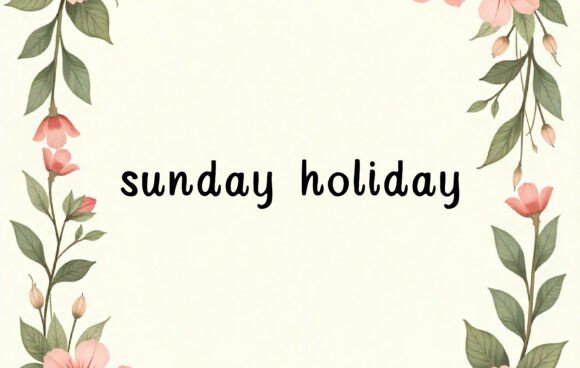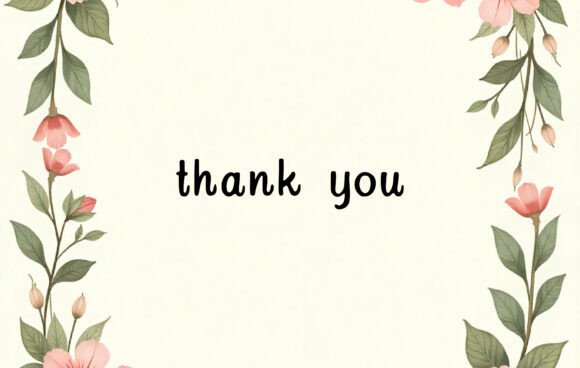
Where Words Come Alive: The Magic of the Alorienne Font
Have you ever scribbled down a quote, a poem, or a heartfelt message, only to be transported to a world of emotions and imagination? That’s the power of handwriting, and it’s precisely what the Alorienne Font captures in its soft, modern script style. This delightful font is designed to evoke a sense of warmth, elegance, and creativity, making it perfect for lifestyle branding, stationery, logos, packaging, and quotes.
For designers, the Alorienne Font is a valuable addition to their toolkit, offering a unique balance between casual charm and professional polish. Its smooth, rounded forms and graceful entry strokes ensure clear readability, while its multilingual support opens up a world of possibilities. Whether you’re looking to add a personal touch to your designs or create a professional yet approachable brand, the Alorienne Font is sure to shine.
Alorienne Font Key Features
- Font Family: Alorienne Font is a script font, suitable for various design applications.
- Unique Characteristics: Alorienne Font features a flowing, cursive script with elegant and sophisticated strokes, making it ideal for wedding invitations, certificates, and other formal designs.
Alorienne Font Review
Overall, the Alorienne font is an elegant and sophisticated choice for a wide range of designs. Its unique blend of classic and modern elements makes it a great option for anyone looking to add some personality to their work. ✨ One of the standout features of this font is its excellent legibility, making it perfect for body text or headings.
- ✨ Elegant and sophisticated design
- ✨ Excellent legibility
- ✨ Versatile and suitable for a wide range of designs
- ⚠️ Limited support for certain languages (only Latin and Cyrillic scripts)
- ⚠️ May not be suitable for very small or very large font sizes
Overall, I would say that the Alorienne font is a great choice for designers who want a high-end look without breaking the bank. With its excellent legibility and sophisticated design, it’s a great option for a wide range of projects. Just be aware of the limitations and use it accordingly.
Tips for Getting the Most Out of Alorienne Font
For the best results, use Alorienne Font in combination with high-contrast backgrounds and bold lines. This will help the font stand out and create a visually appealing design. Experiment with different font sizes and styles to add emphasis and hierarchy to your design.
Alorienne Font is ideal for creative, artistic, or whimsical designs. It’s perfect for branding, logos, infographics, or even children’s book illustrations. The font’s unique style and flair can add a touch of personality to your design and make it stand out from the crowd.
Alternatives to Alorienne Font
Playfair Display is a luxurious and elegant serif font perfect for creating high-end designs, such as magazine covers, luxury brand logos, and wedding invitations. It features a classic feel with intricate details, making it an excellent choice for adding sophistication to your designs.
Compared to Alorienne Font, Playfair Display has a more formal and traditional look, while Alorienne Font has a more modern and minimalist feel. If you want to convey a sense of luxury and elegance, Playfair Display is a better choice.
Alex Brush is a beautiful and elegant script font ideal for creating artistic and creative designs, such as typography posters, hand-lettering, and watercolor illustrations. It features a flowing and organic feel, making it perfect for adding a touch of whimsy to your designs.
Compared to Alorienne Font, Alex Brush has a more fluid and expressive look, while Alorienne Font has a more clean and minimalist feel. If you want to create a design that feels artistic and creative, Alex Brush is a better choice.